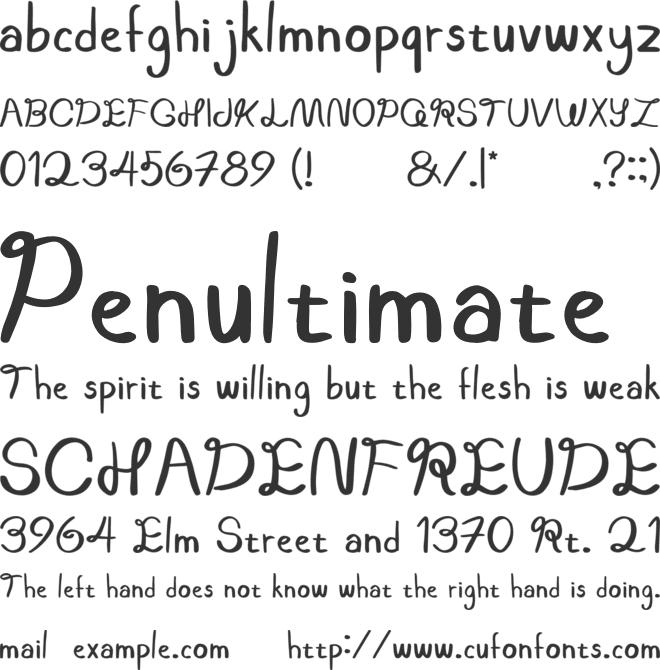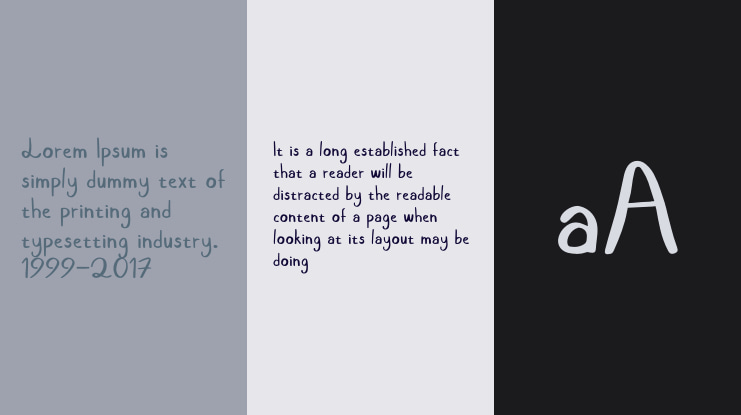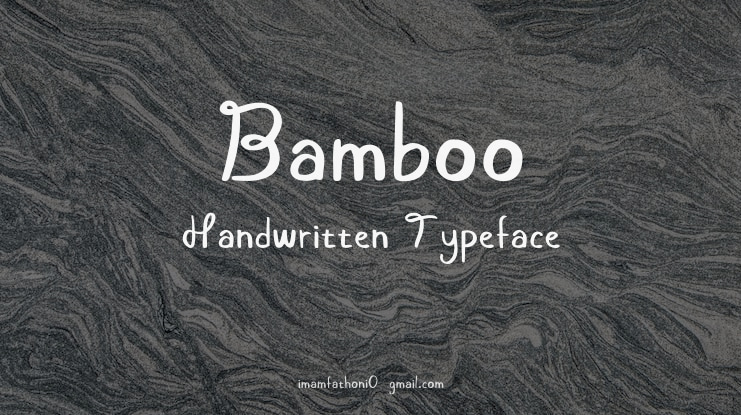
Bamboo Handwritten Font
Bamboo Handwritten is a playful, rounded handwritten font with bouncy, doodly strokes and a cheerful rhythm. Its simple, friendly letterforms suit children's books, classroom materials, party graphics, and casual designs. The loose, unhurried characters feel like notes scribbled with a smile.